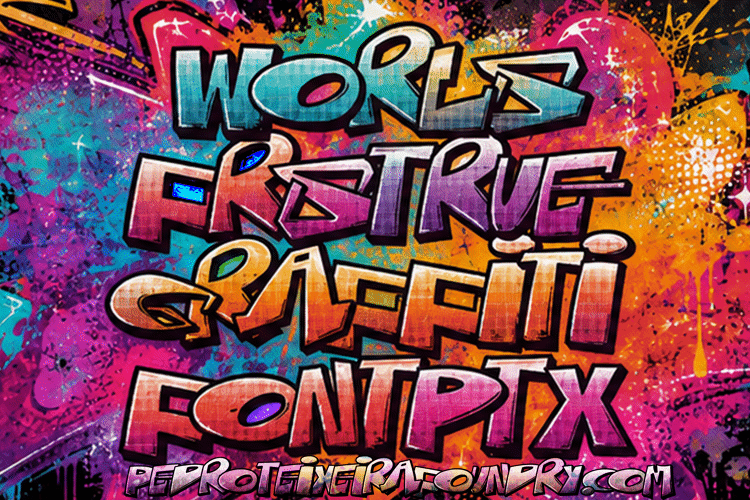
W .rl Frs True Graffi Font
W.rlFrsTrueGraffiFont Regular Style
WorlFrsTrueGraffiFont is a pioneering overllaping graffiti display typeface designed to bring the spontaneous construction of authentic street graffiti directly into everyday desktop applications. Without requiring manual letter positioning, image-editing software or additional graphic customization, the font automatically creates irregular overlaps between characters, reproducing the unpredictable rhythm, compression and visual interaction found in genuine graffiti lettering.
Unlike conventional typography, in which spacing and connections generally follow a repeated structure, WorlFrsTrueGraffiFont Regular allows letters to collide, cross and overlap in continuously changing ways. Its advanced contextual OpenType system automatically selects different character forms and combinations according to their position within each word. The resulting lettering feels drawn, layered and individually composed rather than simply typed.
This distinctive behavior makes it possible to create convincing graffiti-style words, headlines and lettering directly inside compatible design, publishing and desktop applications. Users can achieve an energetic street-lettering appearance from the moment they begin typing while retaining the speed, editability and flexibility of a professional digital font.
WorlFrsTrueGraffiFont Regular combines bold hand-drawn letterforms, extensive contextual variation and a deliberately irregular rhythm inspired by spray-painted tags, throw-ups, murals and expressive urban lettering. Each word develops its own structure, with changing silhouettes, shifting overlaps and natural-looking interactions between neighboring characters.
The automatic overlap system is one of the defining characteristics of WorlFrsTrueGraffiFont Regular. Instead of producing a predictable sequence of evenly separated characters, the font creates the impression that each letter has been placed in response to the letters around it. This helps words appear more spontaneous, compressed and visually connected, echoing the way graffiti artists build lettering directly on walls and other urban surfaces.
WorlFrsTrueGraffiFont Regular is especially effective for streetwear branding, posters, logos, music artwork, album covers, hip-hop and rap graphics, skate and surf designs, T-shirts, packaging, advertising, editorial headlines, social media content, murals and large-format typography.
Created by Pedro Teixeira Foundry, WorlFrsTrueGraffiFont Regular offers designers, artists and brands a new way to produce genuinely dynamic graffiti typography directly through a font. It combines the immediacy and convenience of typing with the irregular energy, layered construction and expressive character of lettering created on the street.